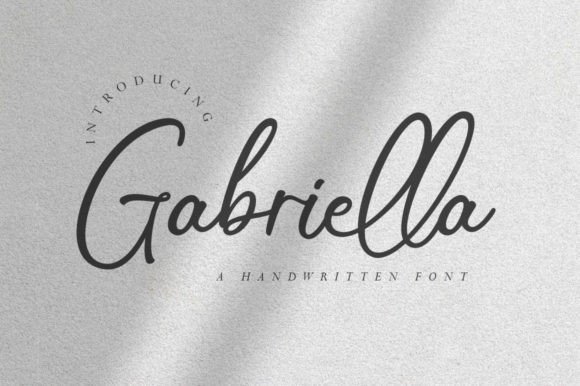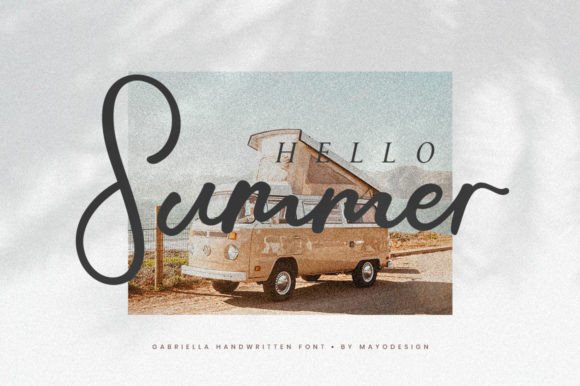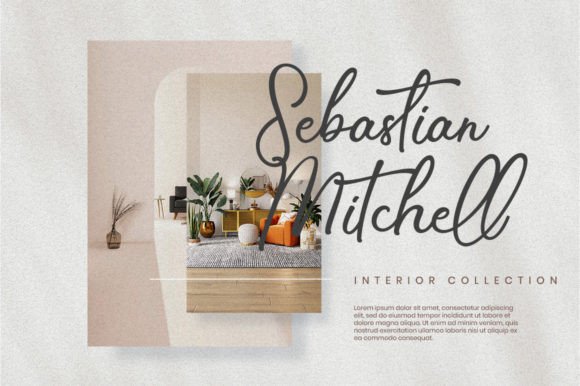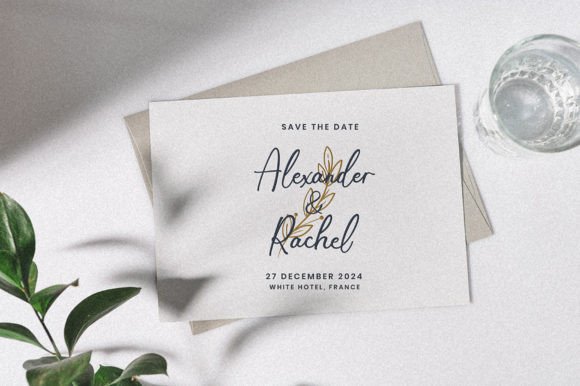
About Gabriella Font
**Gabriella: Modern Handwriting Font with Extraordinary Charm**
Experience the allure of modernity and extraordinary charm with Gabriella, a captivating handwriting font designed to bring a touch of elegance to your creative endeavors. This font is a perfect companion for a wide range of projects, including logos, invitations, stationery, wedding designs, social media posts, advertisements, product packaging, labels, photography, watermarks, special events, and more.
**Modern and Awesome Aesthetic:**
Gabriella strikes the perfect balance between modernity and charm. The font’s contemporary handwriting style adds a touch of sophistication to your designs, making it suitable for a diverse array of creative projects. Whether you’re aiming for a sleek logo or an elegant wedding invitation, Gabriella is the font that effortlessly enhances your visual communication.
**Versatility for Various Design Needs:**
From social media posts to product packaging and special events, Gabriella is a versatile font that adapts to different design needs. Its flexibility allows you to experiment with various applications, ensuring that your projects maintain a consistent and visually appealing aesthetic.
**Perfect for Elegant Branding:**
In the realm of branding, Gabriella stands out as a font that exudes elegance. Whether you’re establishing a brand identity through logos or creating sophisticated stationery, this font becomes a visual representation of refined style, making a lasting impression on your audience.
**Conclusion: Elevate Your Designs with Gabriella**
In conclusion, Gabriella is not just a font; it’s an exquisite tool that elevates your designs with modernity and extraordinary charm. Whether you’re working on branding, invitations, social media content, or any other creative project, let Gabriella be the font that adds a touch of elegance and sophistication. With its PUA encoding, this font empowers you to unleash your creativity and explore the intricate details that make Gabriella a standout choice for your design projects.